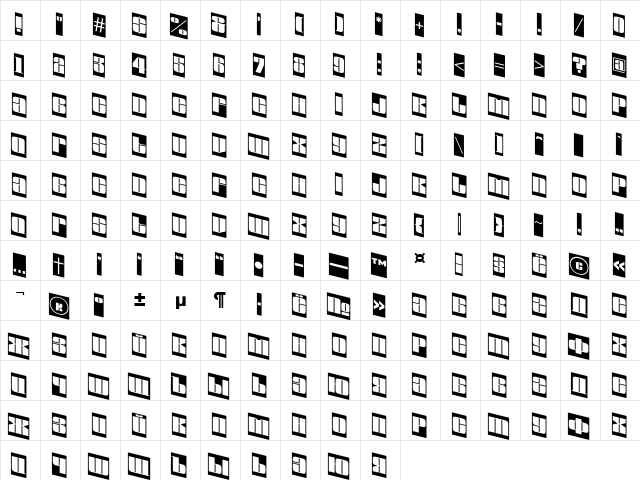
a_GlobusCmSpDn Regular
Design Context for a_GlobusCmSpDn Typeface
a_GlobusCmSpDn is a composed and adaptable typeface that performs quietly and consistently across a wide range of design contexts.